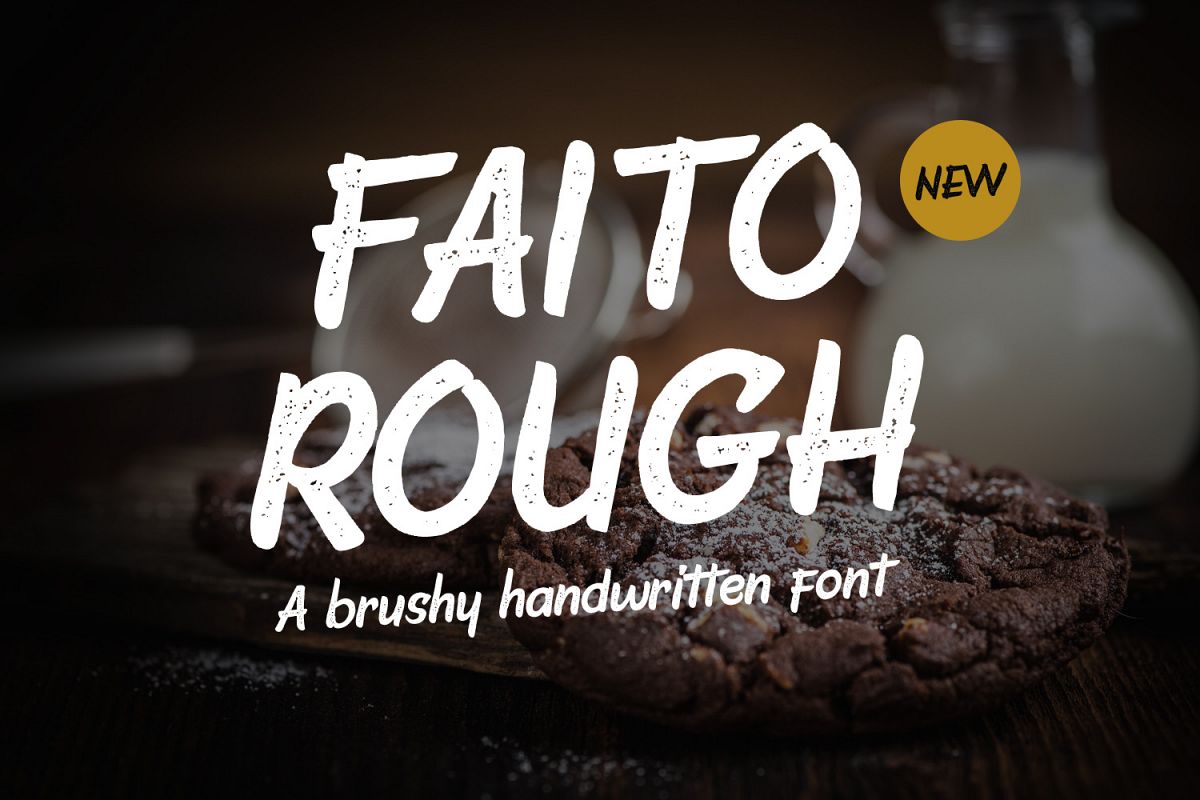
Faito Rough
Faito Rough is a handwritten brush font inspired by
text balloons in Japanese comic book with a neat brushy look. Suitable
for food and beverages restaurant menu, branding, packaging, summer
theme, or your next comic book.